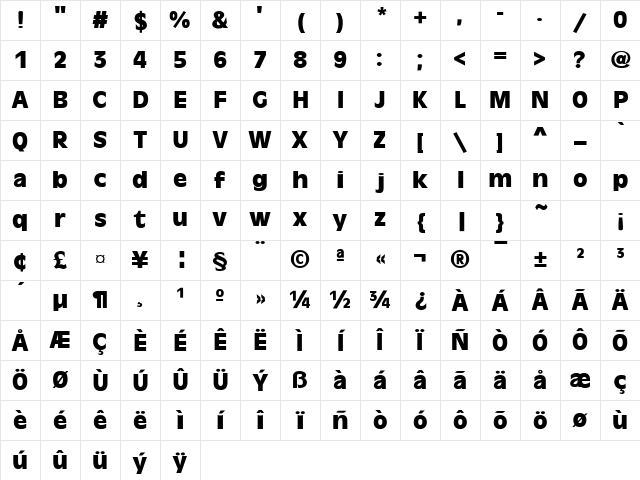
AntiqueHeavy Regular
Design Context for AntiqueHeavy
AntiqueHeavy wears its vintage influences proudly, with letterforms that recall mid-century signage, classic packaging, and nostalgia-driven design.
Font Pairing: Combine AntiqueHeavy with a simple slab or neutral sans - period-accurate companions reinforce the vintage feel without competing for attention.
Pro Tip: Lean into AntiqueHeavy's period character by pairing it with aged paper textures, muted colour palettes, and vintage illustration styles.